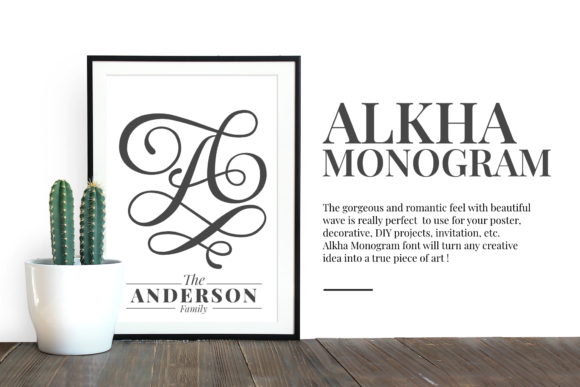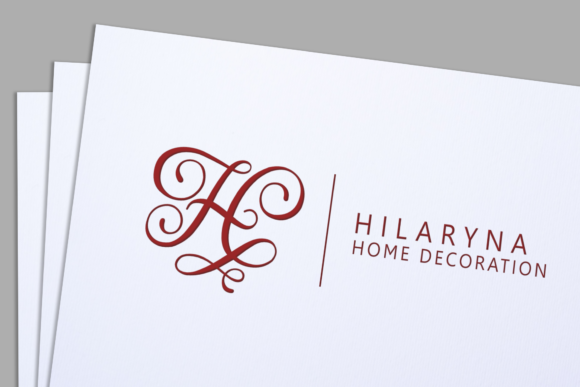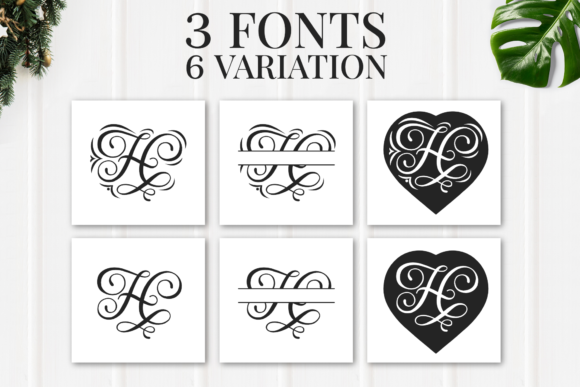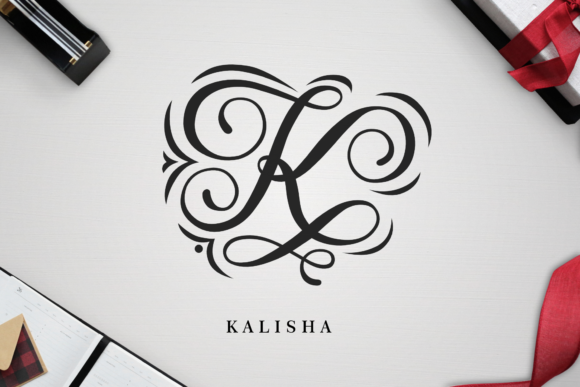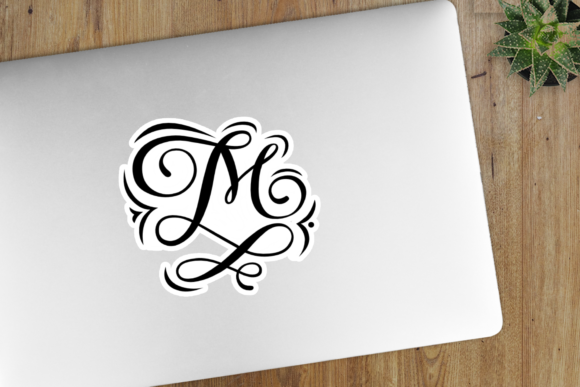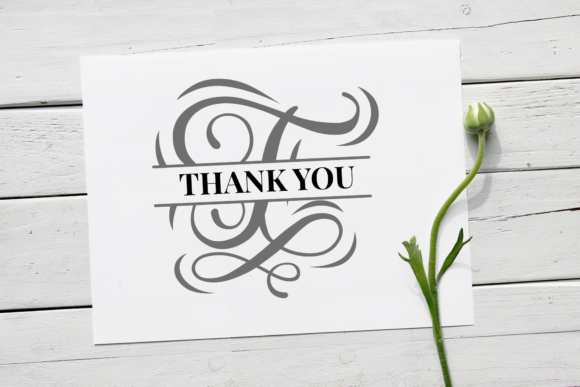
Introducing Alkha Font: Elevate Your Designs with Elegance
In the world of typography, a font can make or break a design. For crafty individuals, designers, and businesses looking to make a statement, Alkha Font is a game-changer. This decorative font simplifies elegance into one truly outstanding typeface that can elevate a wide range of creative projects. From letterheads and titles to stationery and more, Alkha Font is the perfect choice for those seeking to add a touch of sophistication to their work.
The Beauty of Alkha Font
Alkha Font boasts a unique and stylish design that exudes elegance and refinement. Its intricate details and beautiful lines make it a standout among other decorative fonts. Whether you’re looking to create a luxurious brand identity, design eye-catching stationery, or craft stunning titles, Alkha Font is the perfect tool for the job. Its versatility and flexibility make it an excellent choice for a wide range of applications, from digital designs to print materials.
Key Features of Alkha Font
- Elegant Design: Alkha Font features a sophisticated and refined design that’s perfect for high-end brands and creative projects.
- Versatile: This font can be used for a variety of applications, including letterheads, titles, stationery, and more.
- High-Quality: This font is designed with high-quality and precision, ensuring that it looks great in any size or resolution.
Why Choose Alkha Font?
With so many fonts available, why choose Alkha Font? The answer lies in its unique blend of style, elegance, and versatility. This font is designed to help you create stunning designs that stand out from the crowd. Whether you’re a professional designer or a crafty individual, Alkha Font can help you elevate your work and achieve your creative goals. Additionally, Alkha Font is an excellent choice for:
- Branding: Create a luxurious brand identity that exudes elegance and sophistication.
- Stationery: Design stunning stationery, including letterheads, business cards, and more.
- Digital Designs: Use Alkha Font to create eye-catching digital designs, including social media graphics, blog posts, and more.
Tips for Using Alkha Font
To get the most out of Alkha Font, here are a few tips to keep in mind:
- Experiment with Sizes: Alkha Font looks great in a variety of sizes, so don’t be afraid to experiment and find the perfect size for your design.
- Pair with Other Fonts: Alkha Font pairs well with other fonts, so try combining it with other typefaces to create a unique look.
- Use it Sparingly: While Alkha Font is elegant and refined, it can be overwhelming if used too much. Use it sparingly to create a striking design that doesn’t overwhelm the viewer.
In conclusion, Alkha Font is a truly outstanding decorative font that can elevate a wide range of creative projects. Its elegant design, versatility, and ease of use make it an excellent choice for designers, crafty individuals, and businesses looking to make a statement. Whether you’re looking to create a luxurious brand identity, design stunning stationery, or craft eye-catching titles, Alkha Font is the perfect tool for the job. So why wait? Download Alkha Font today and experience the power of elegance in your designs.